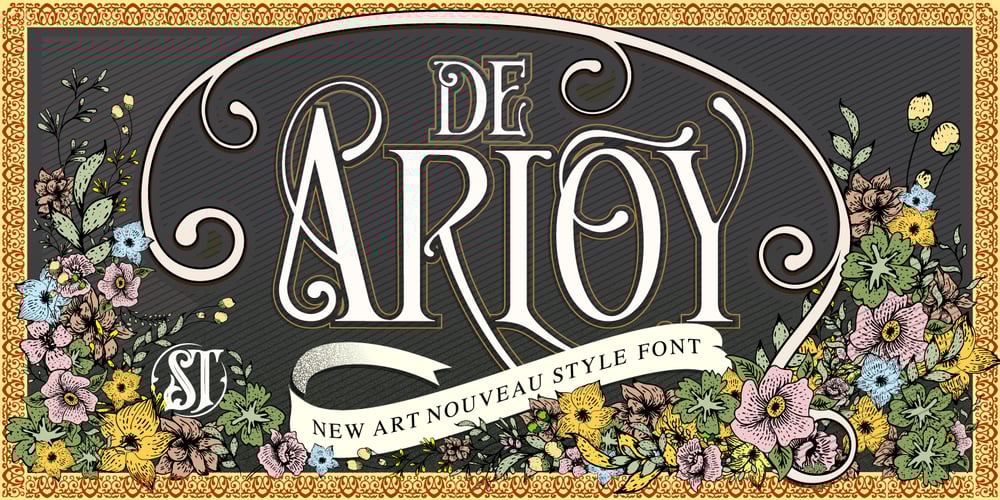
De Arloy Font Family was designed by panji nugroho and published by Storictype. De Arloy contains 1 styles and family package options. De Arloy Typeface was inspired by art nouveau style from 1890-1910 which combining classic typography with awesome features bring classic touch on this decade :), it works well with normal size text but it works even better for large displays or short words. this is suit for : wine packaging, labeling, logo, classic shop, coffee shop, movie title, etcDe Arloy Features Uppercase Lowercase Numerals & Punctuations Open Type featuringLigatures